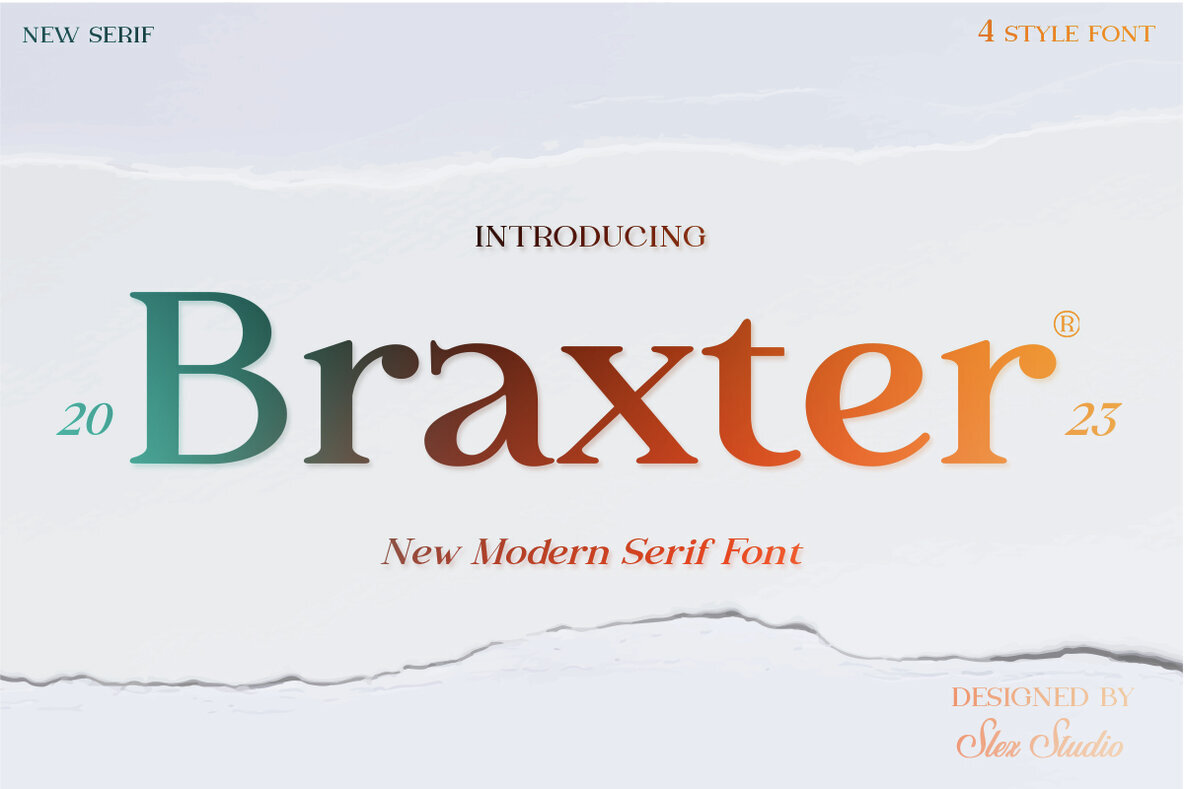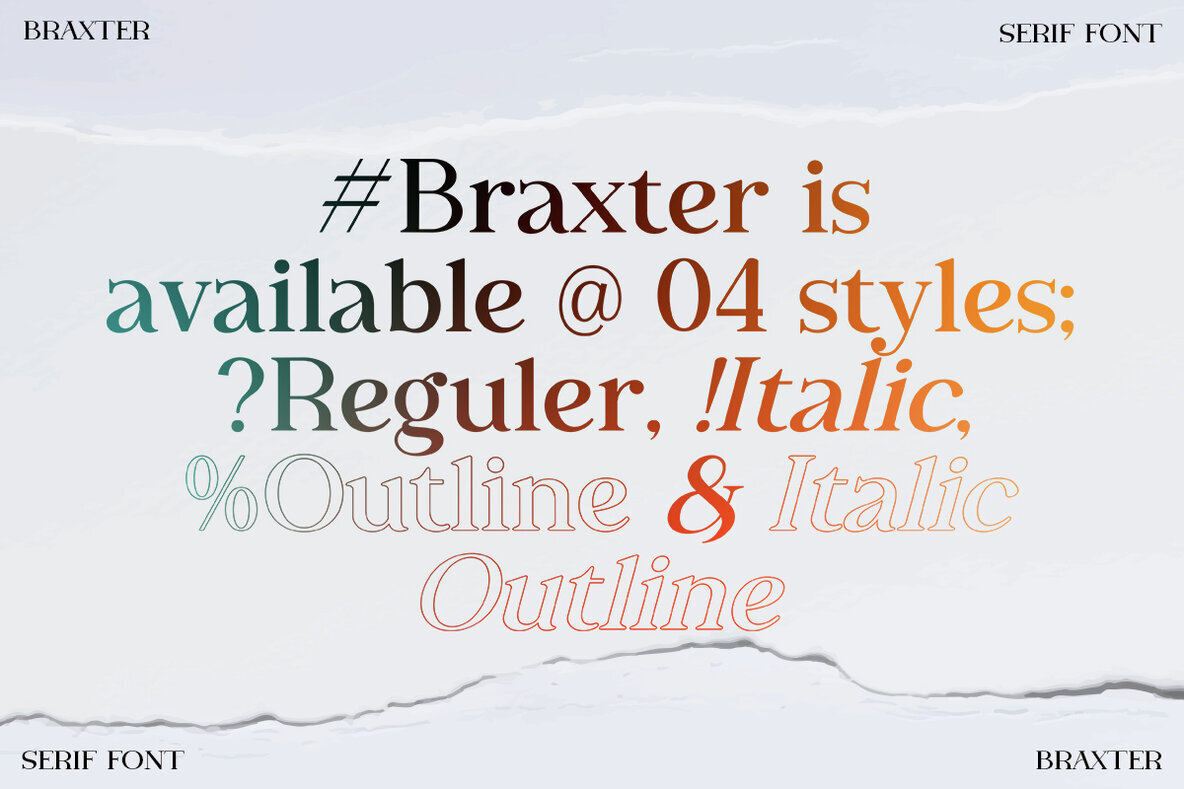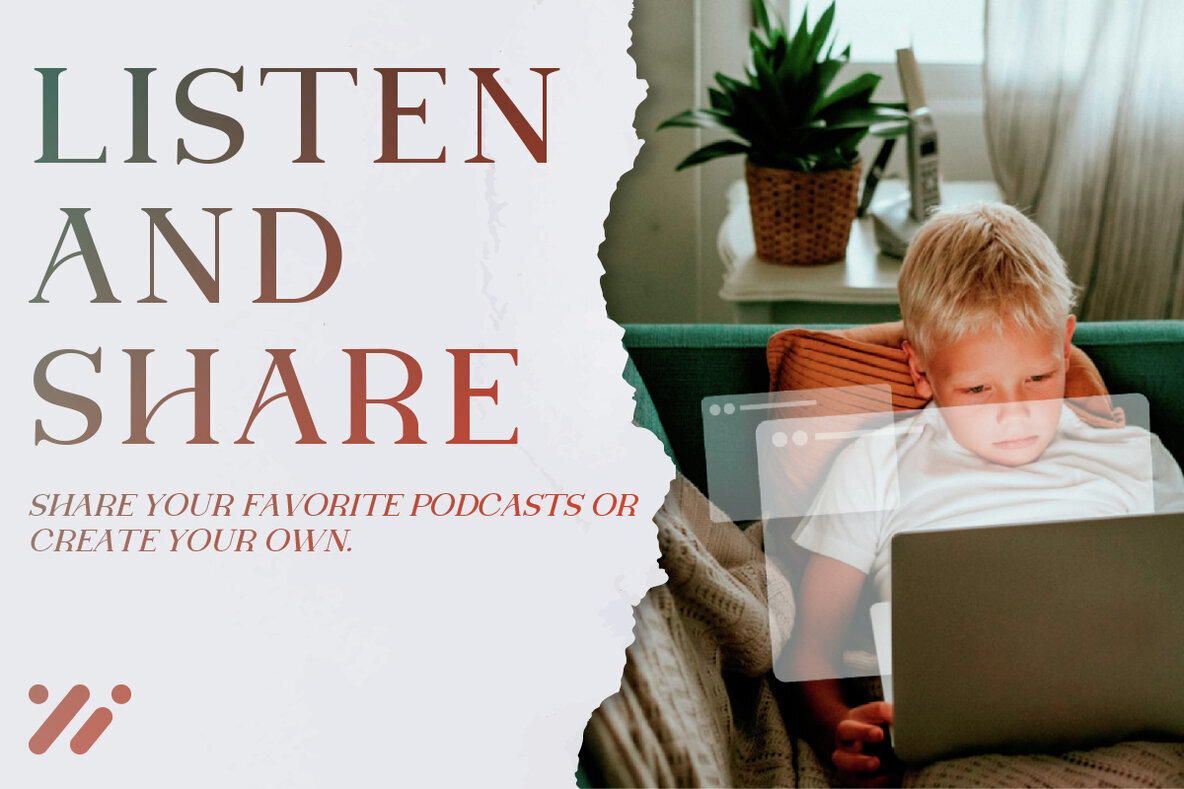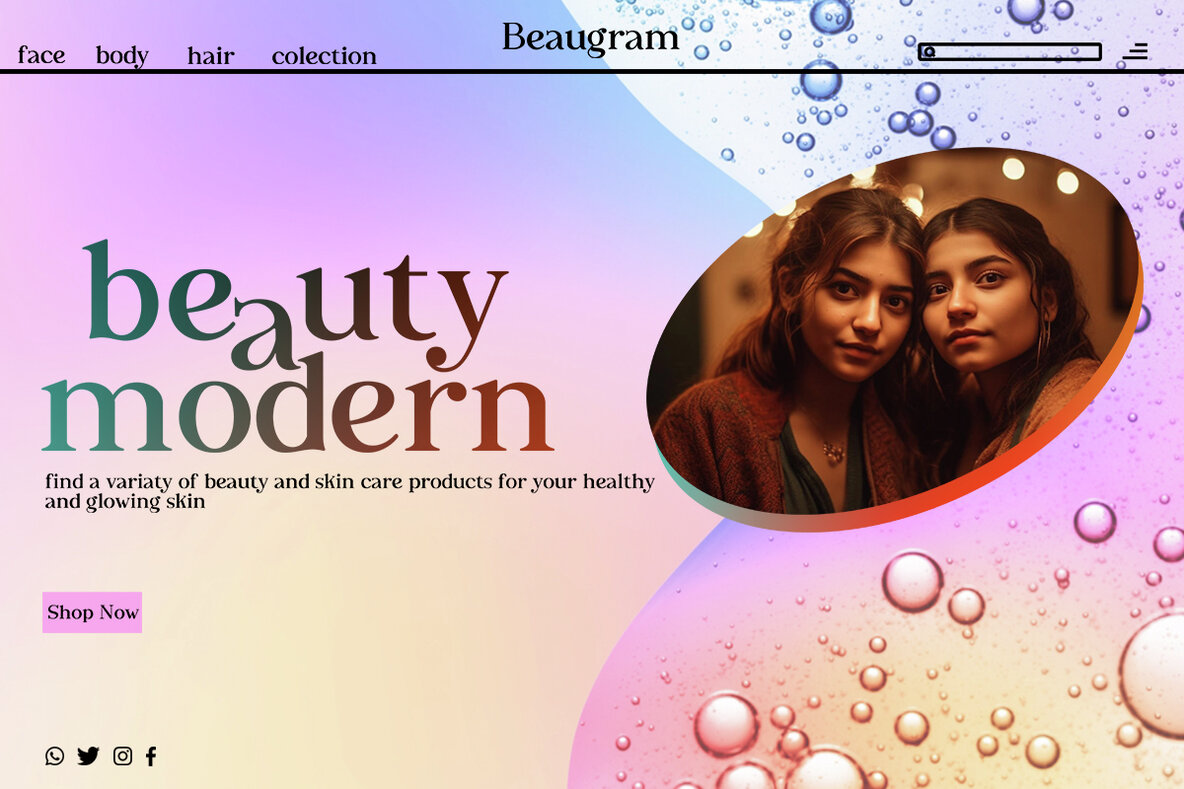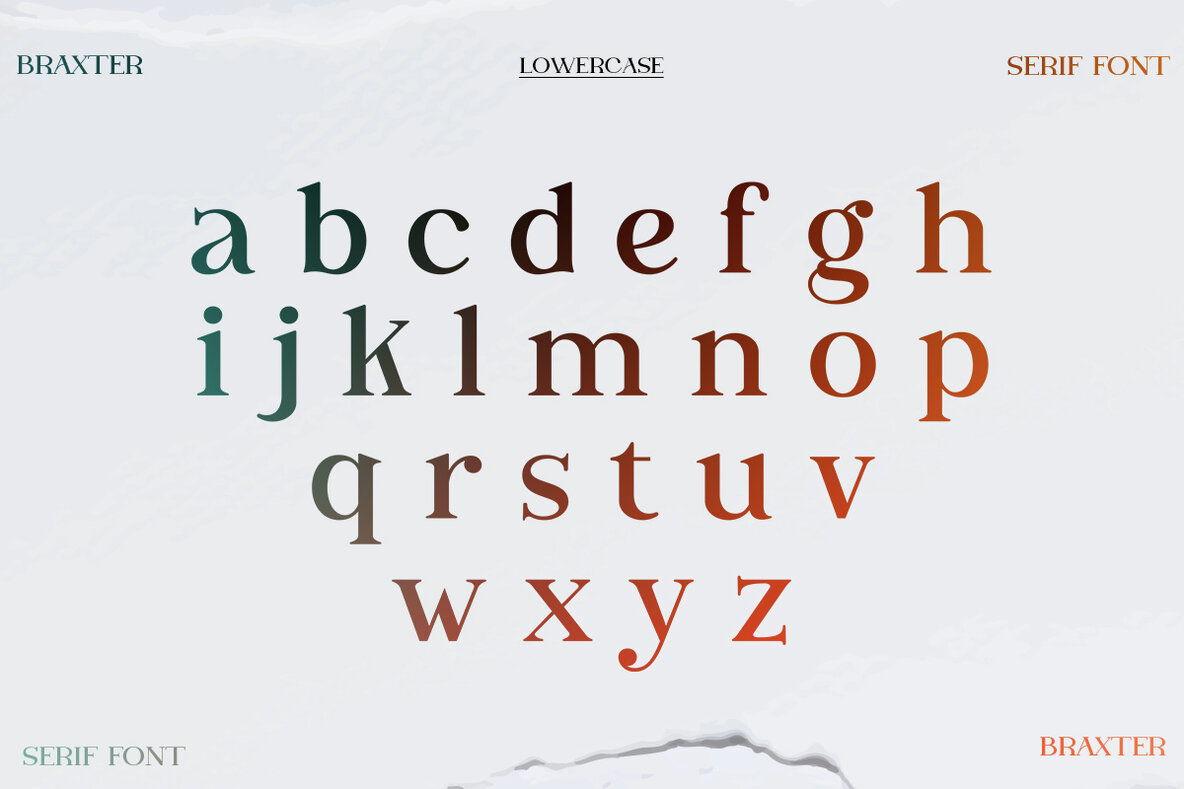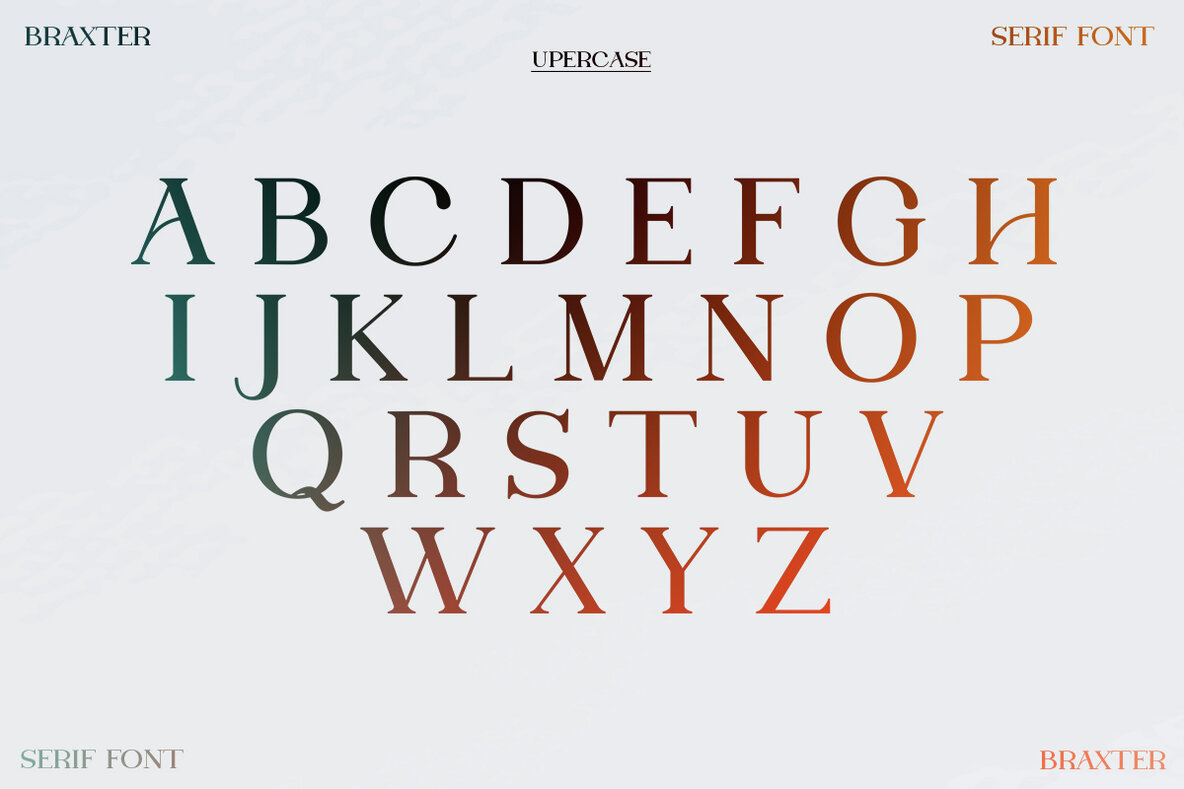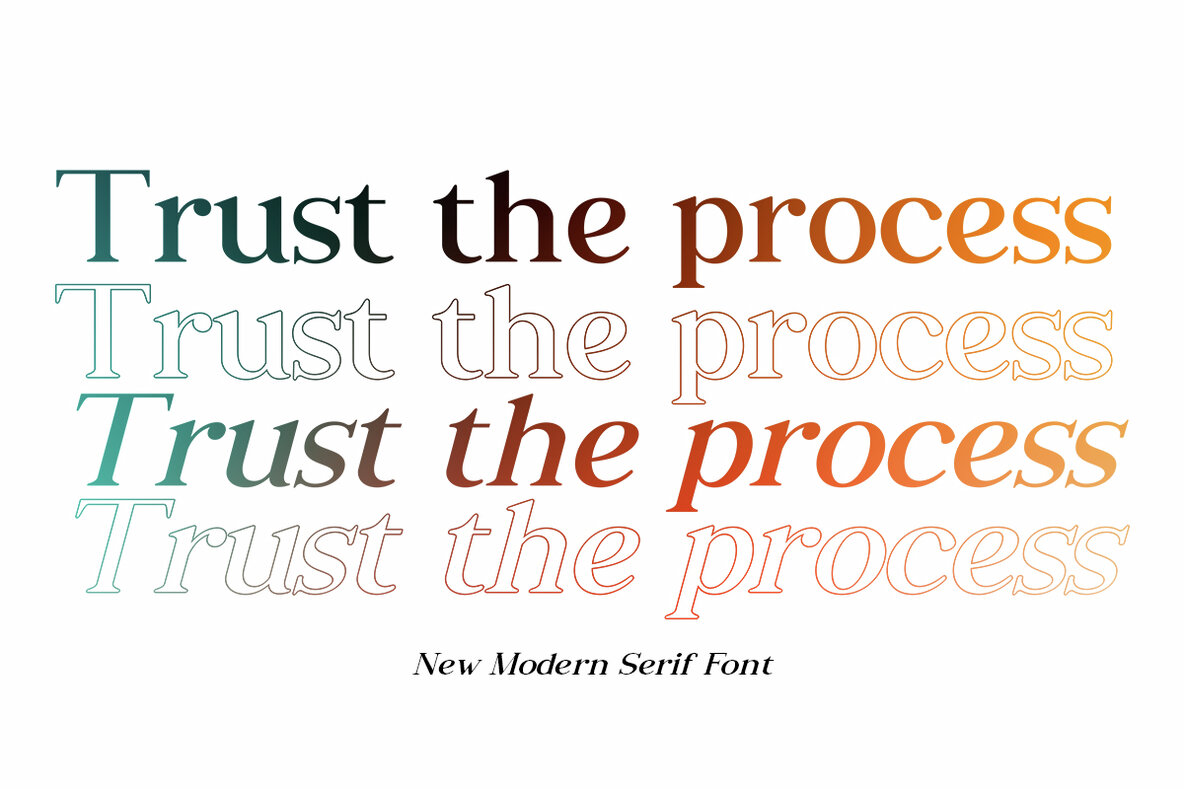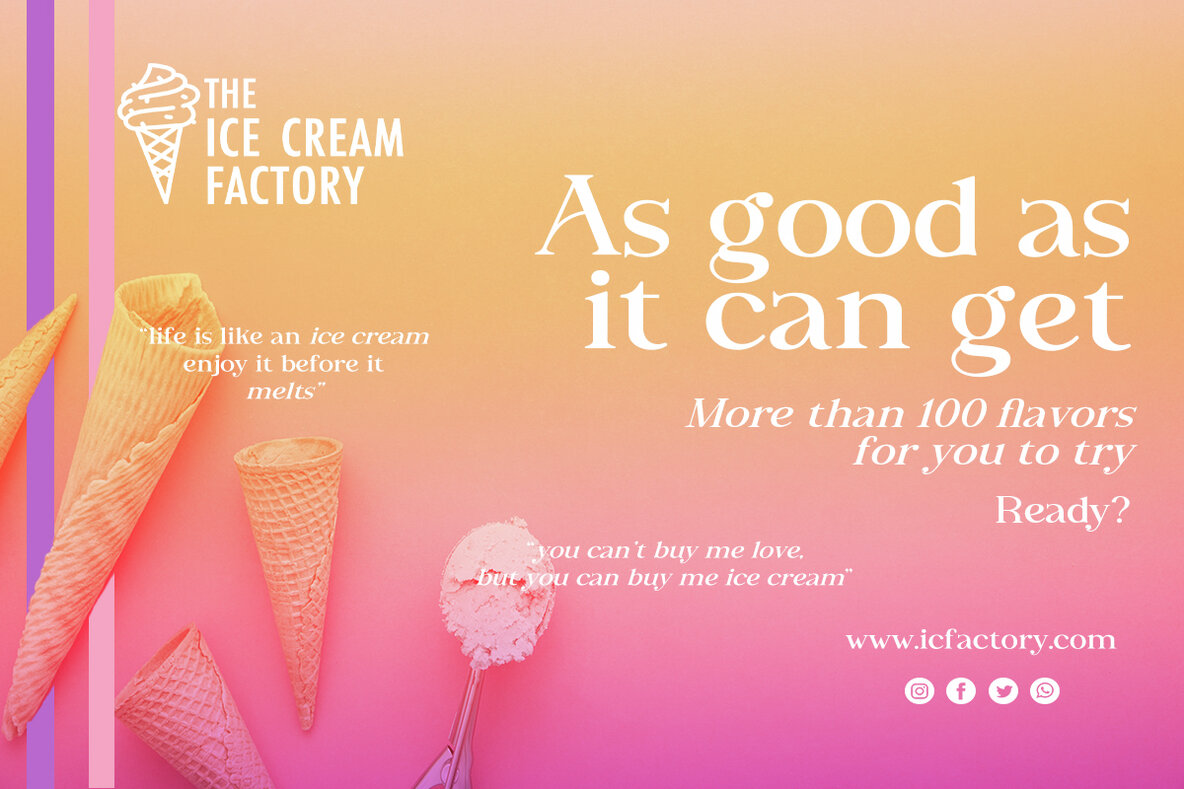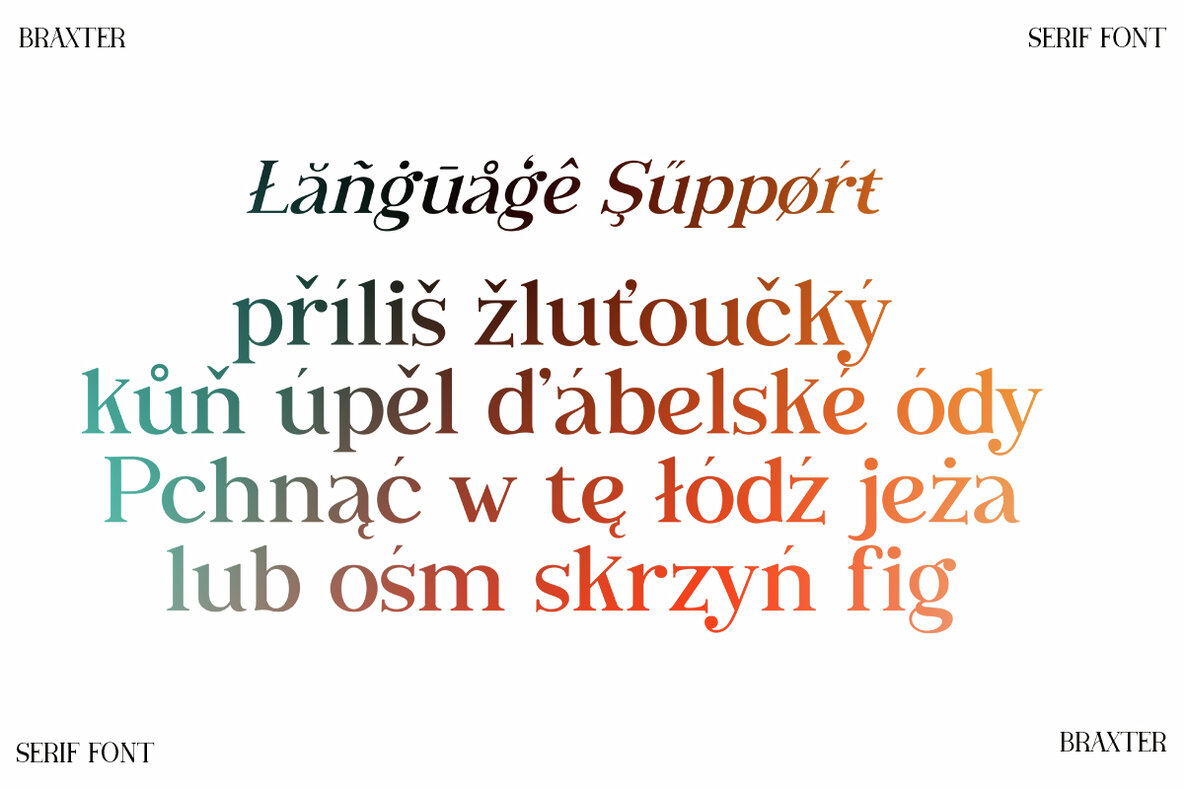
Braxter Font
Braxter Regular
Braxter Italic
Braxter Italic Outline
Braxter Outline
Discover Braxter, a timeless serif font that combines classic retro style with a modern edge. Designed to offer decent readability, Braxter is not only ideal for engaging display text but also for refined body content. Drawing inspiration from the resurgence of retro design, this font is your go-to choice for nostalgia-infused, yet sleek and sophisticated creations.Braxter: Retro Serif with Modern Elegance
Perfect for Versatile Design Needs